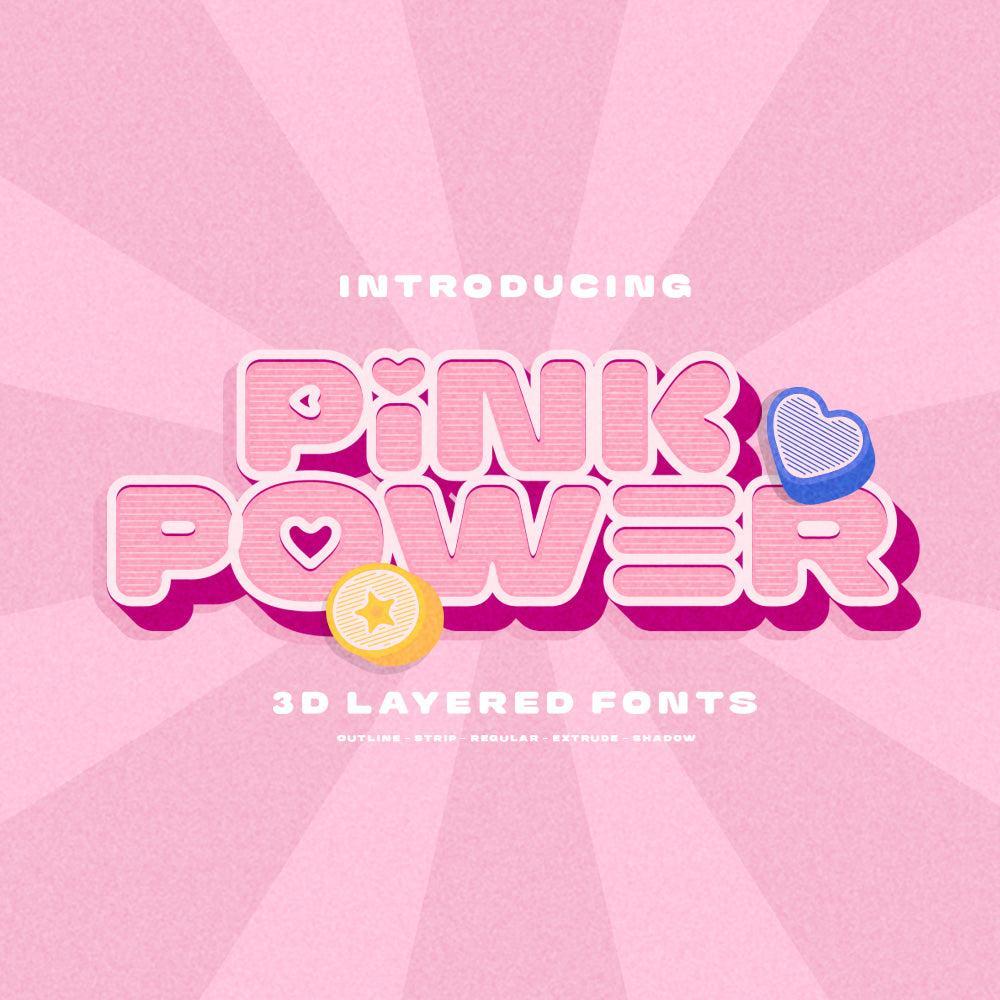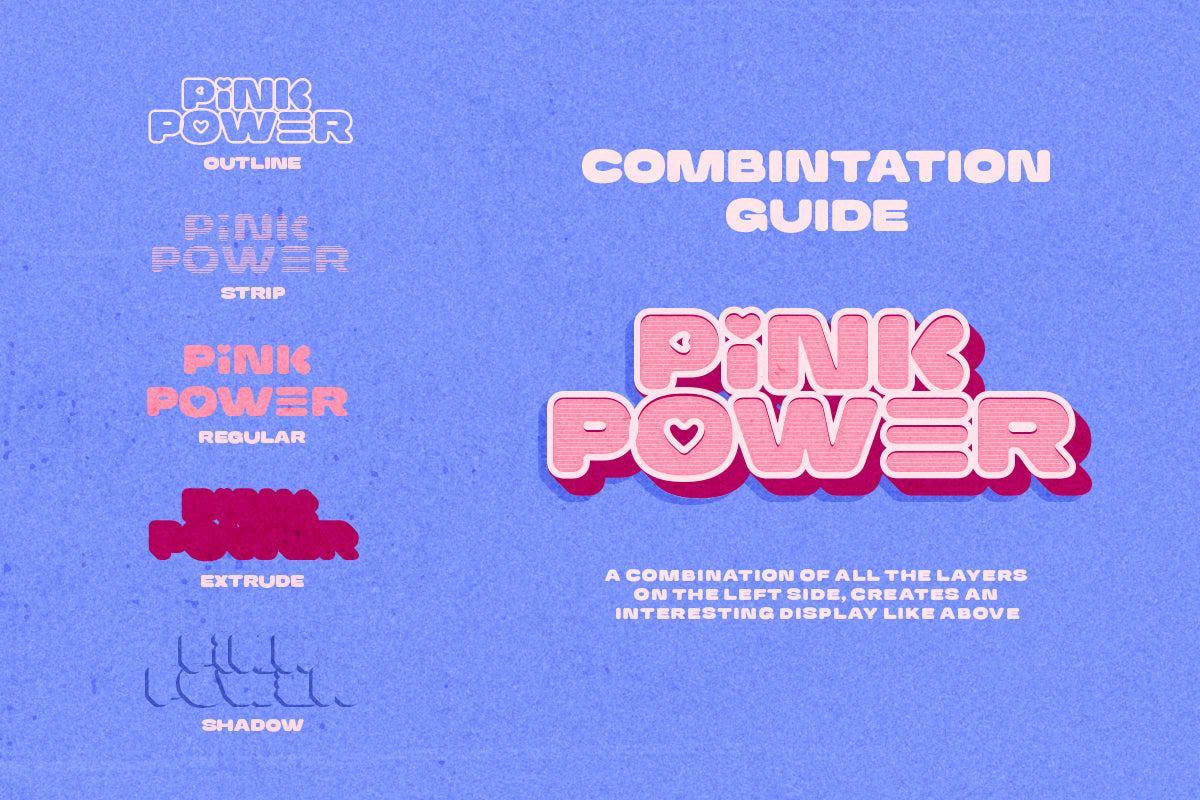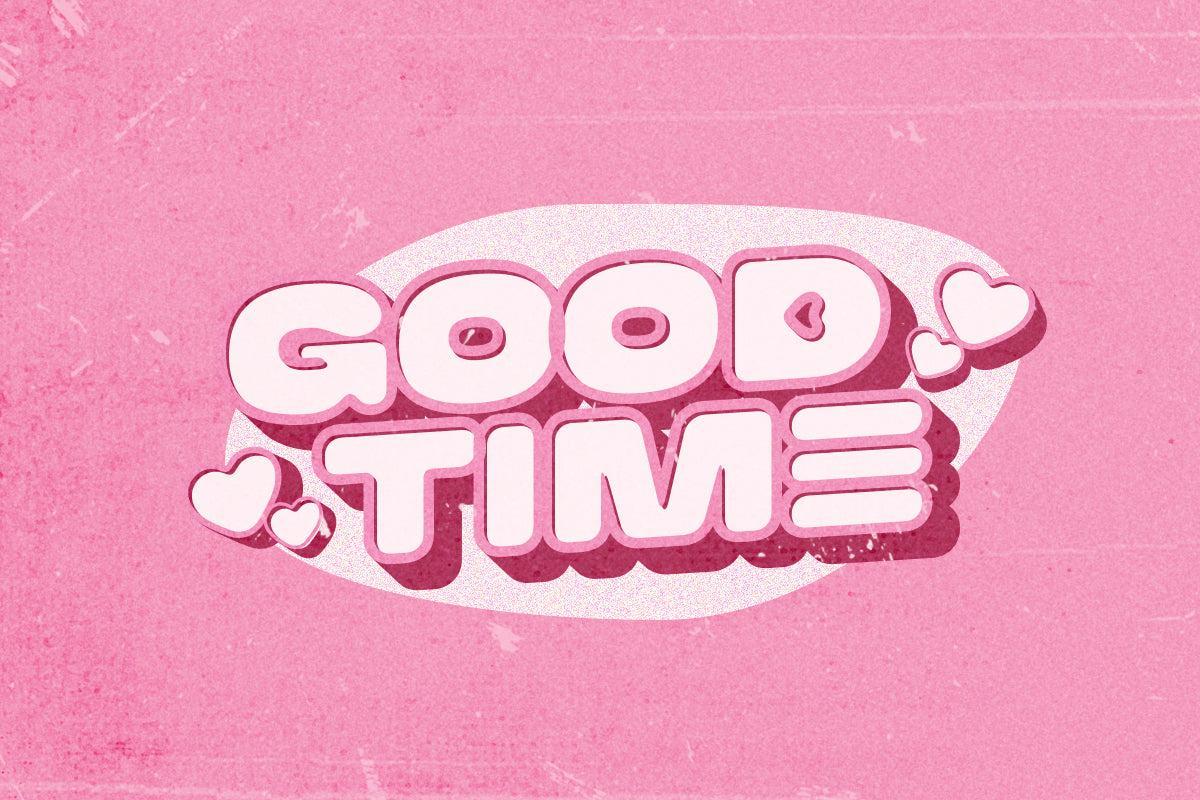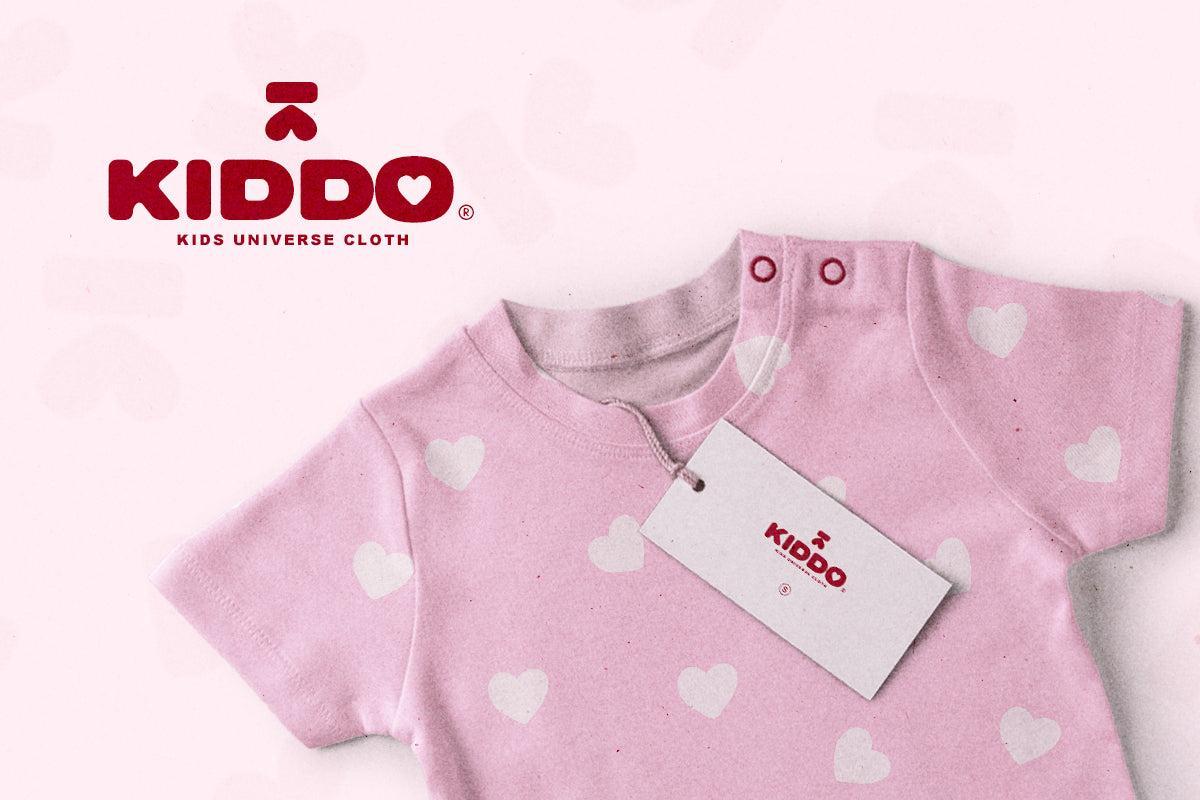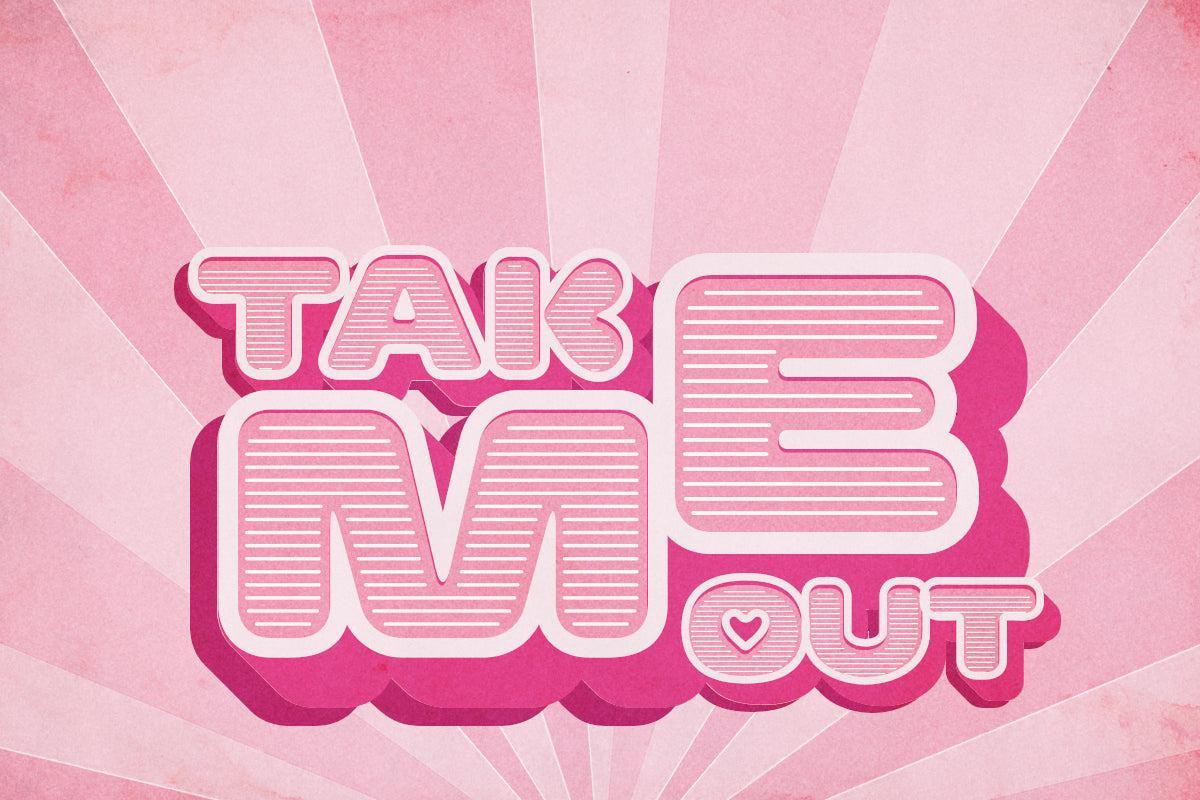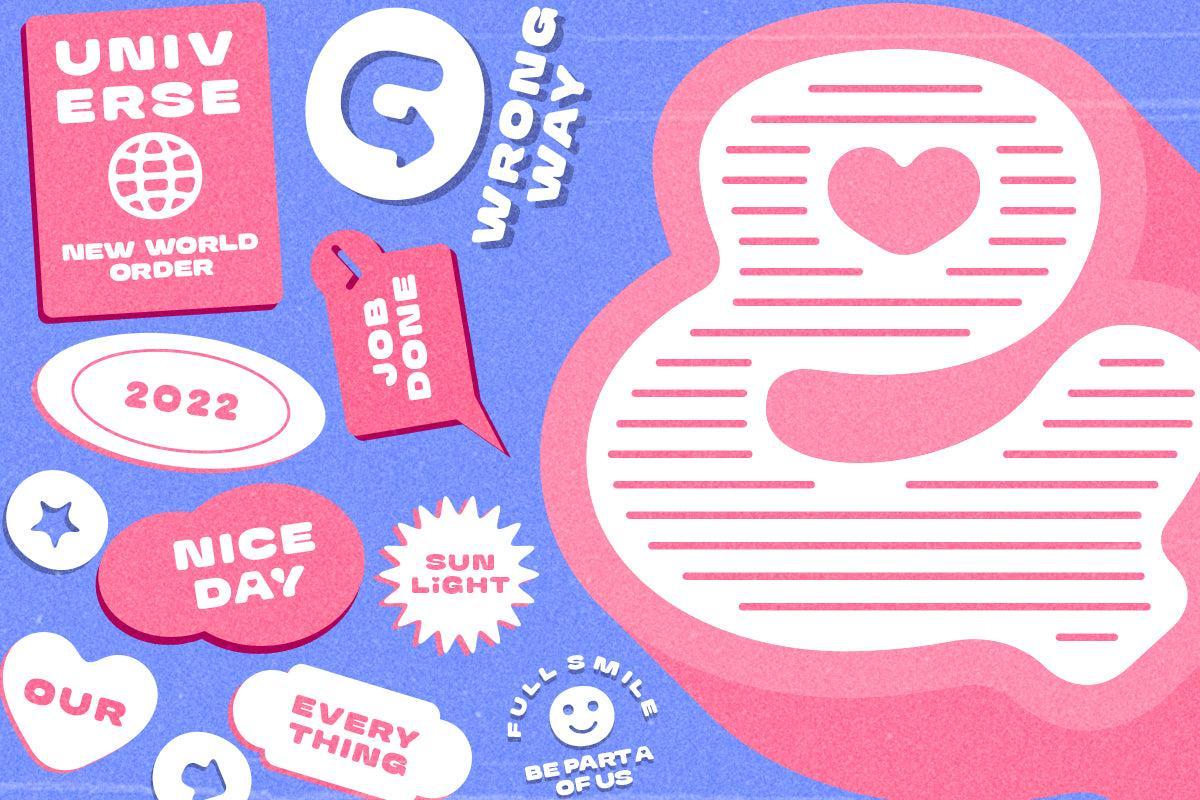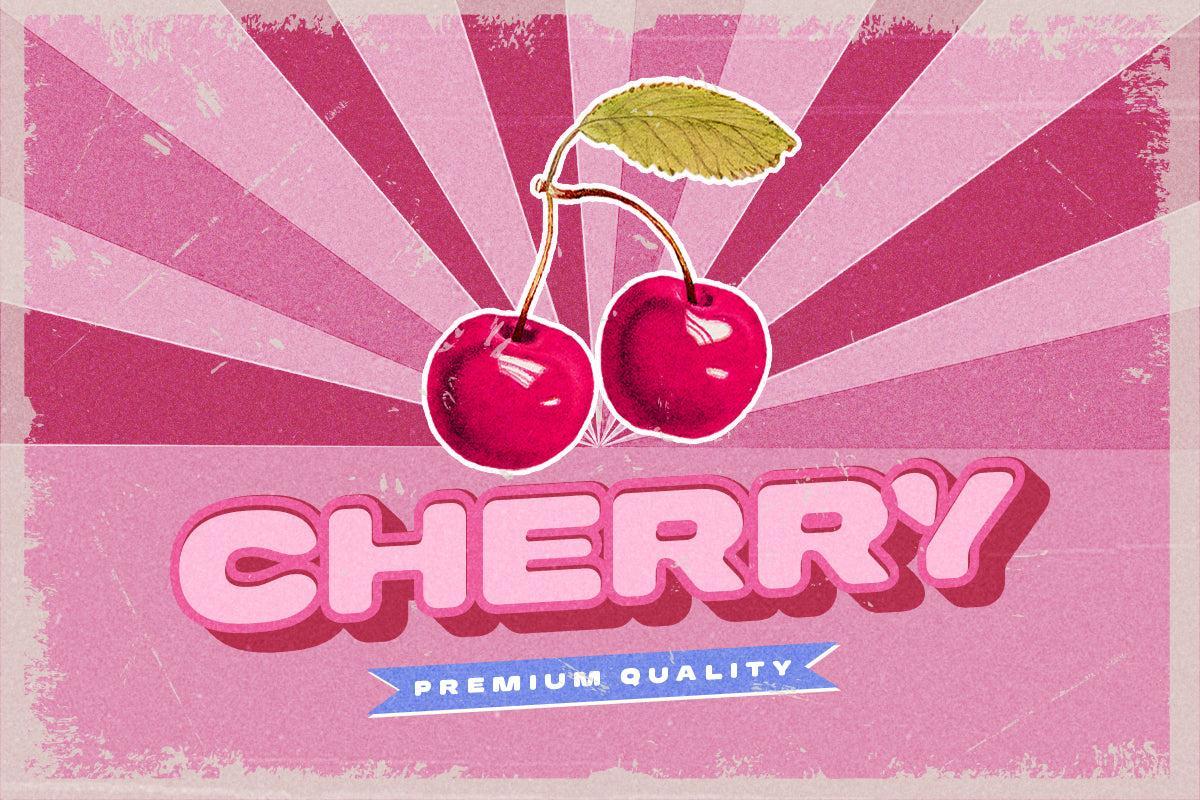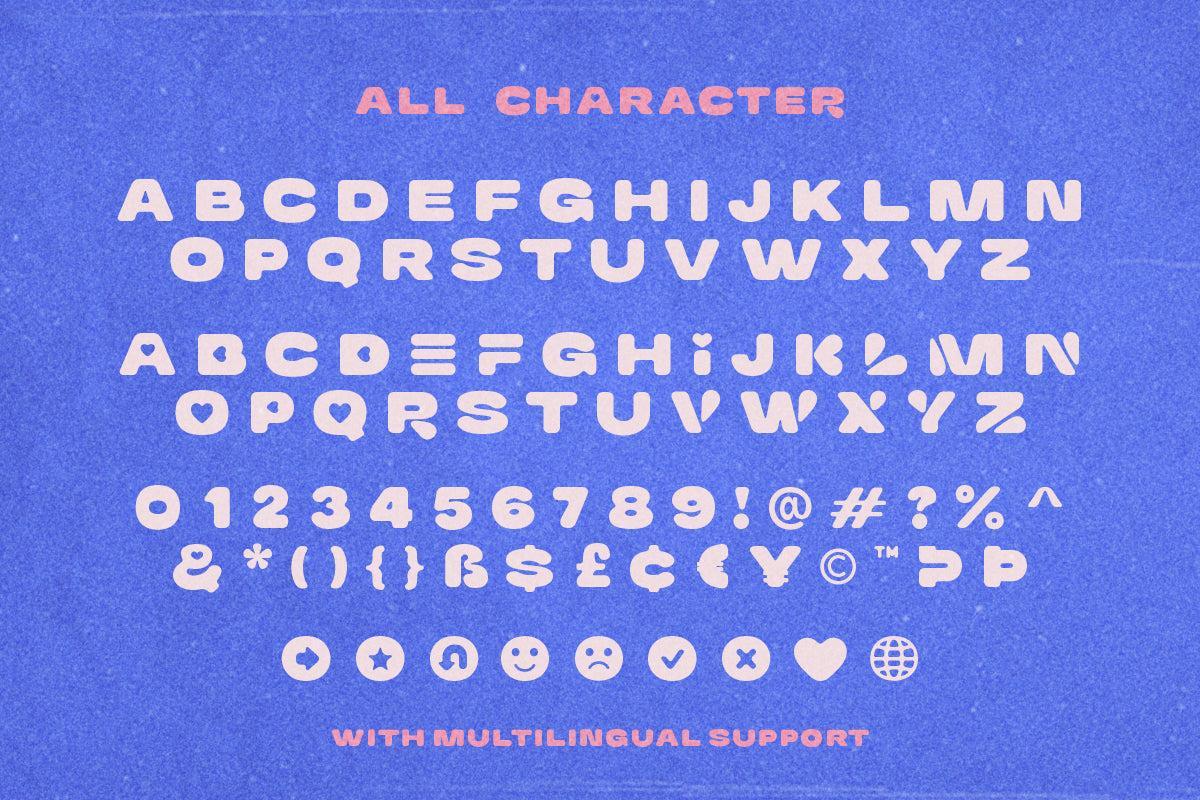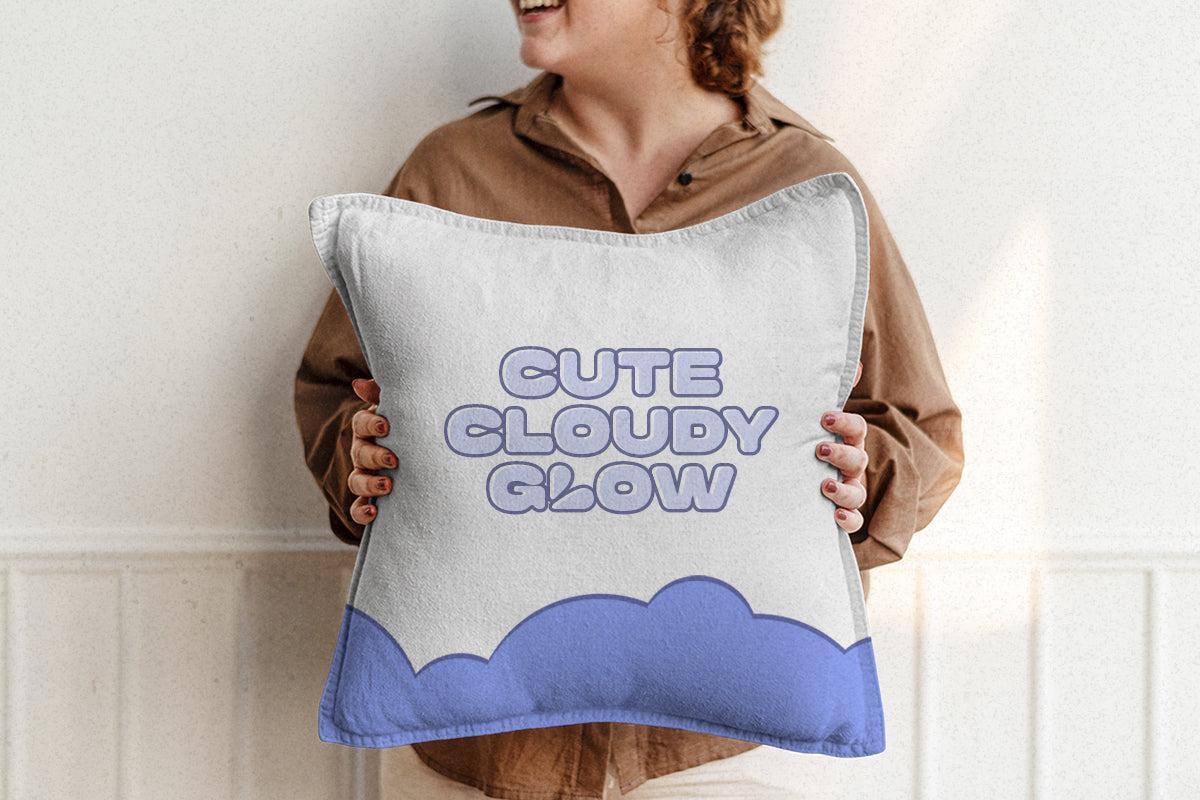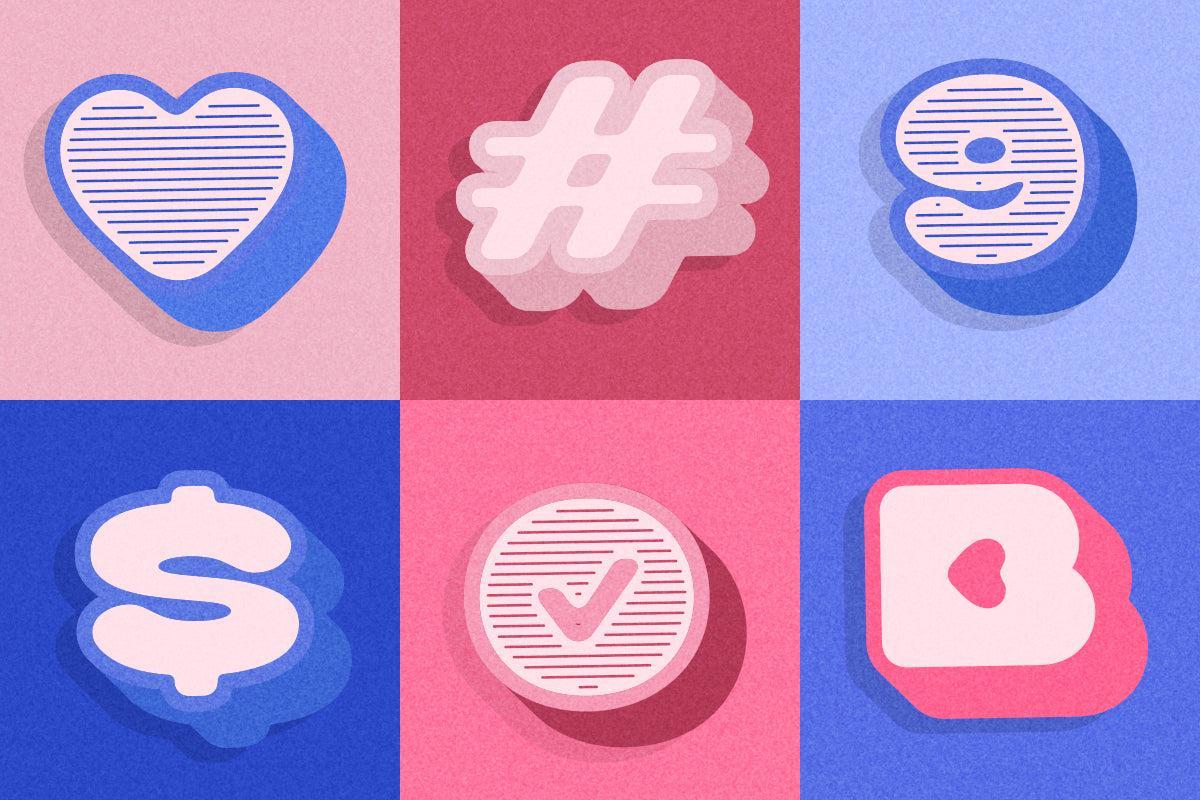
Pink Power - 3D Layered Font
Pink Power is a 3D retro sans font featuring layered styles, including outline, strip, regular, extrude, and shadow options, allowing for a customizable 3D appearance. It includes unique lowercase letters, icons accessible via ligature OpenType features, and supports multilingual text.